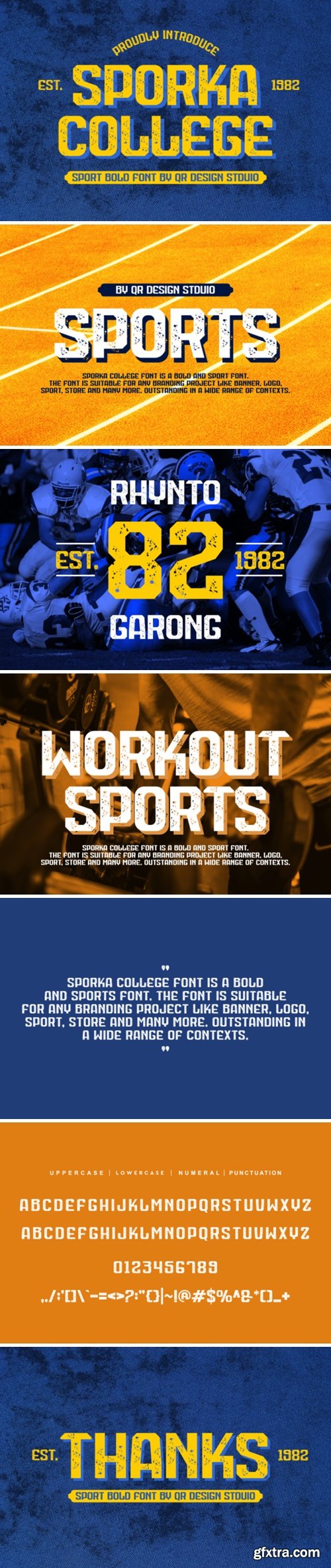
斯普洛克学院字体
Sporka College is a cool, textured sans-serif font that adds character and depth to your designs. With stylish letterforms and a touch of urban flair, it brings a contemporary, grunge-inspired aesthetic. Ideal for projects seeking a modern and edgy look, Sporka College elevates your designs with its distinctive and textured appeal.